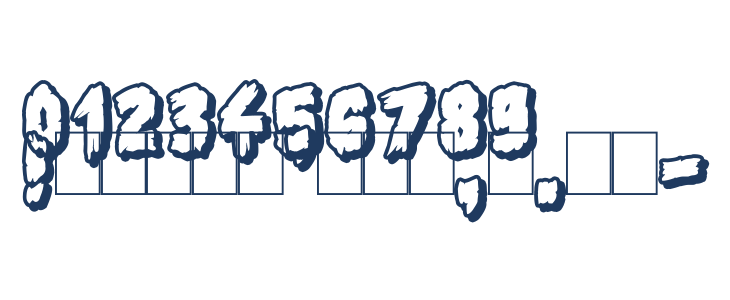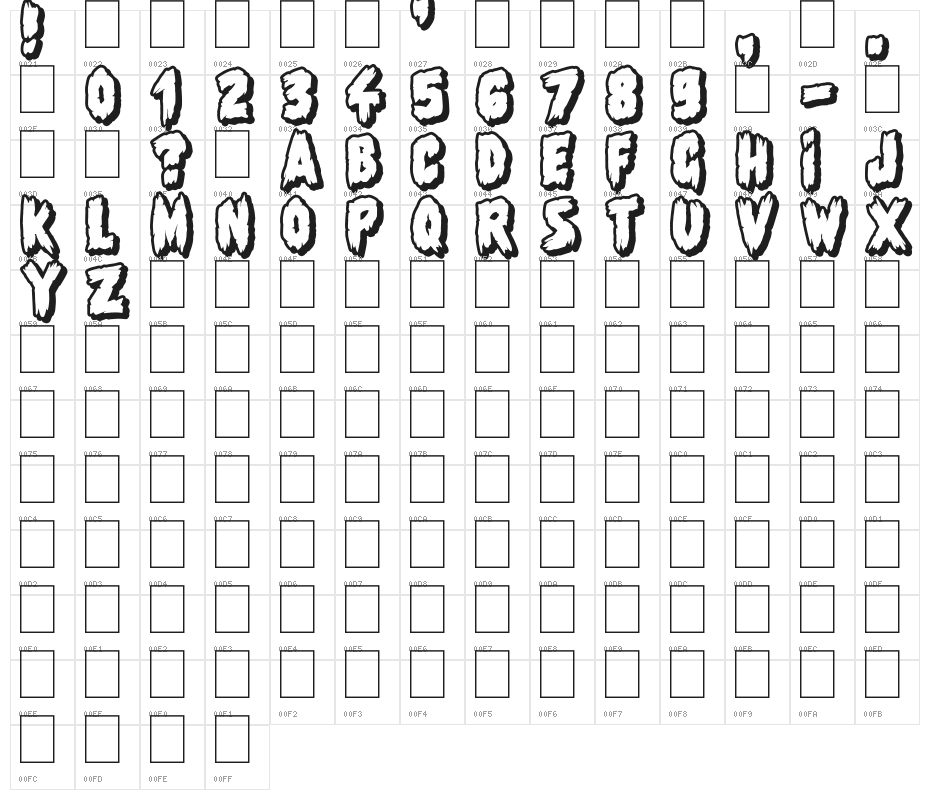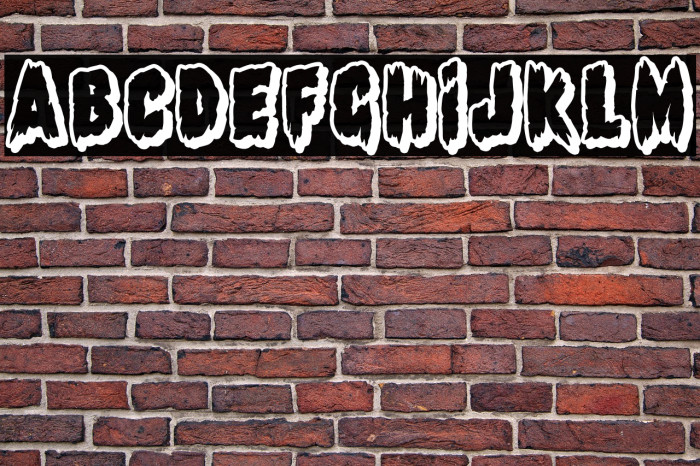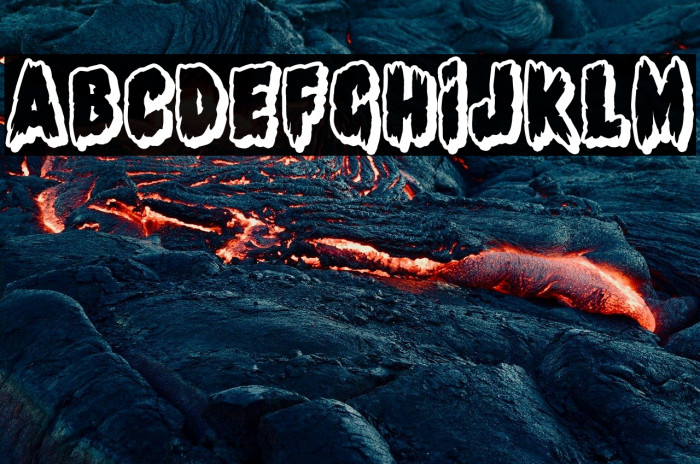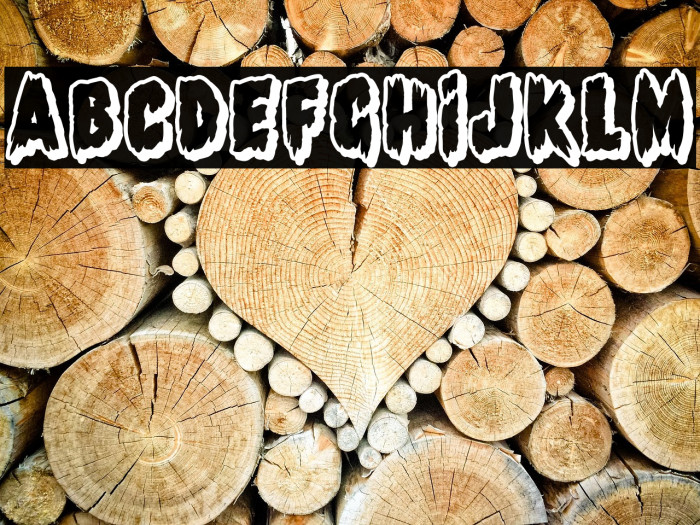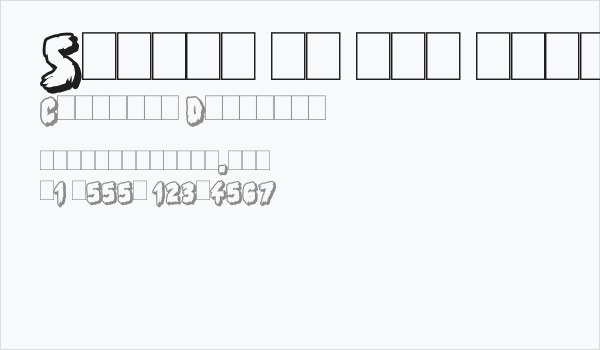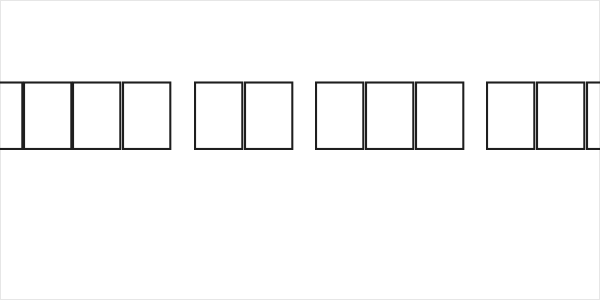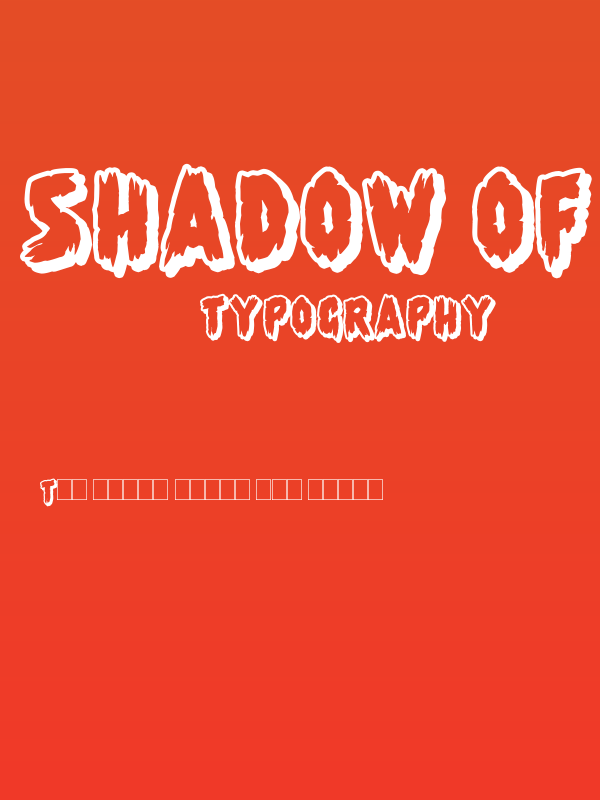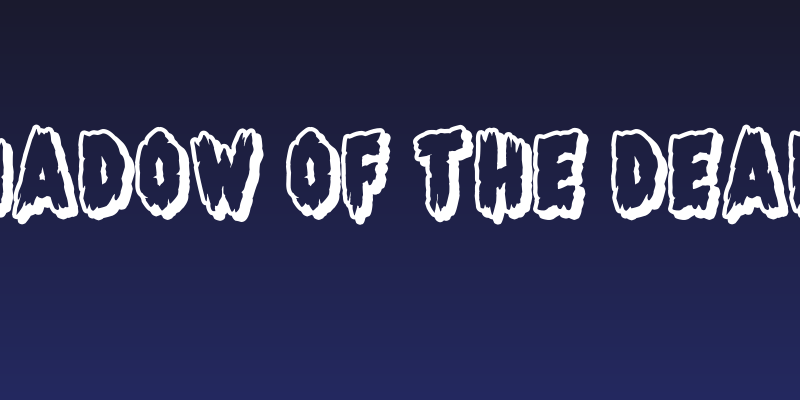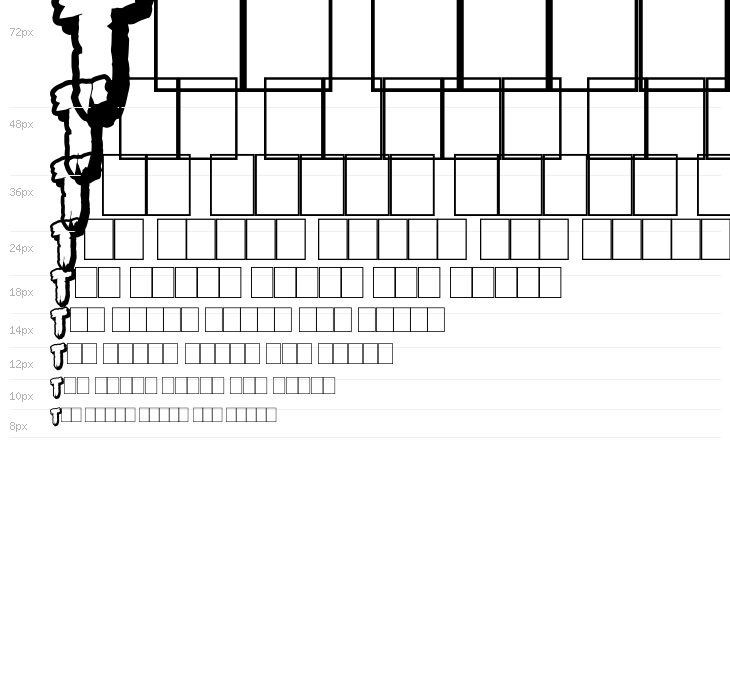
Shadow of the deads Font
Shadow of the deads Description
This font features bold, jagged edges with a shadow effect that gives it a three-dimensional appearance. The letters are uppercase and have a rough, hand-drawn style that resembles dripping paint or a horror-themed aesthetic. The numbers and special characters follow the same design, maintaining consistency across the set. The font's unique style makes it stand out, with a playful yet eerie vibe that is perfect for thematic designs. Its boldness ensures high visibility, making it suitable for attention-grabbing headlines or titles.
Proposed ProjectsIdeal for Halloween posters, horror movie titles, spooky event invitations, and themed merchandise.